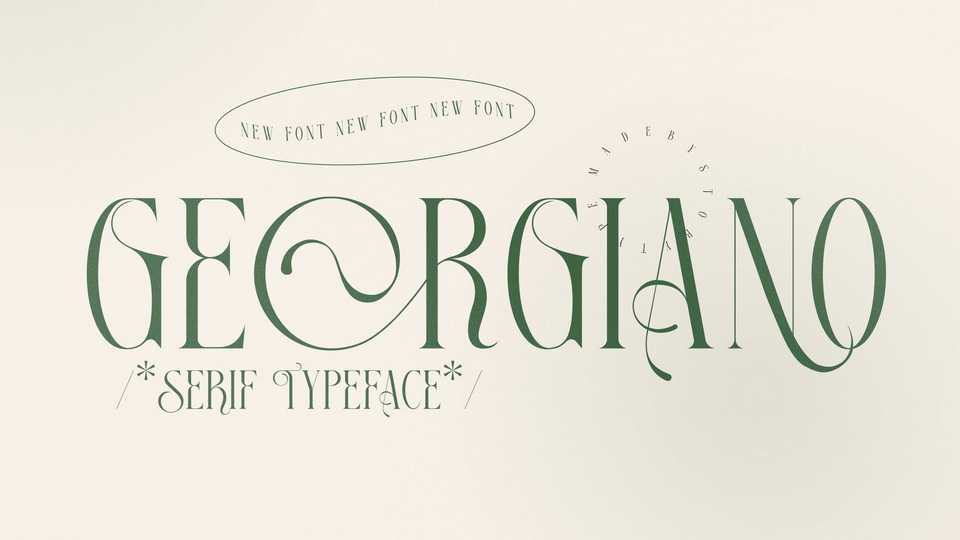
Download Georgiano font, a stylish and delicate serif typeface that has own unique vibe. Georgiano font is perfect for an elegant and luxury logo, book or movie title design, fashion brand, magazine, clothes, lettering, quotes, and so much more.